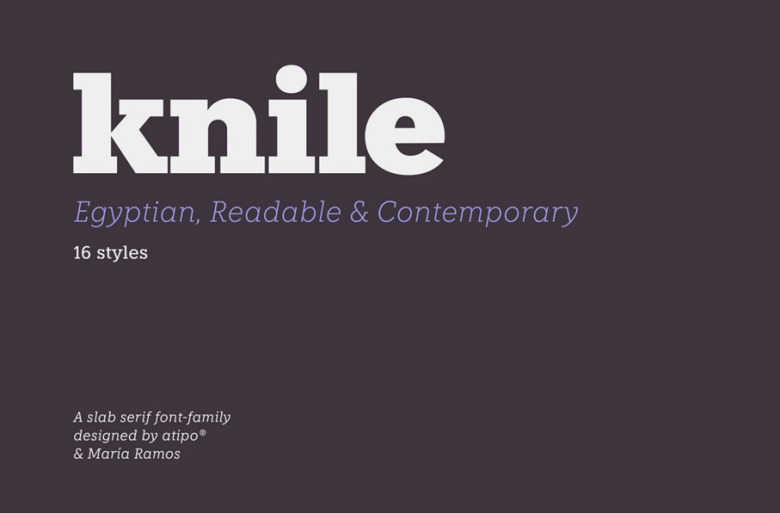
Knile Font Family
Knile Font
Introducing to you a slab serif typeface family. Introducing Knile font family! Knile designed by atipo ®. You’ll need it round your design project. I think it is good for many different jobs.